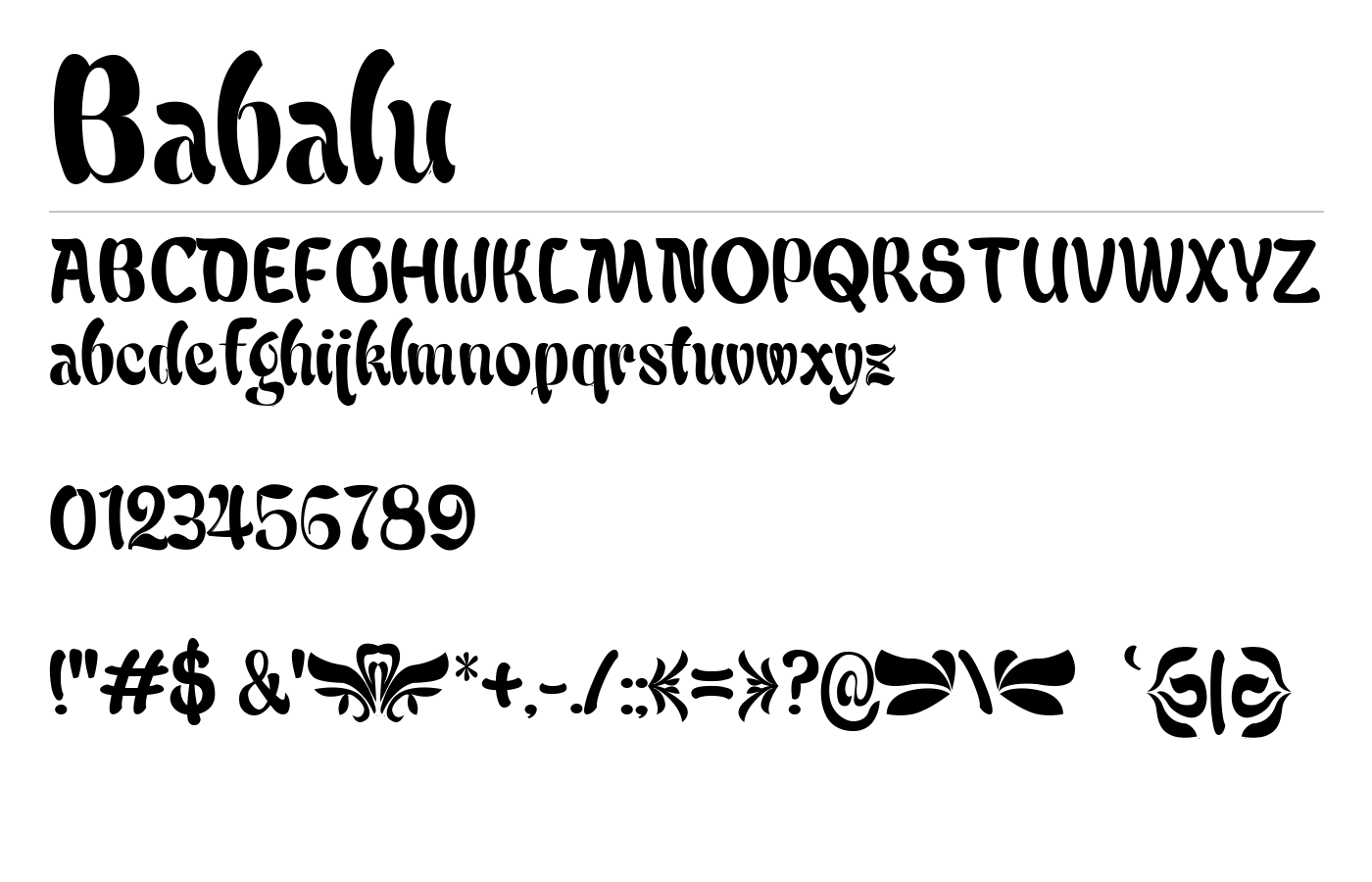
Babalu is a bold, artistic serif font with a unique and playful character, featuring strong strokes and decorative details that give it a lively, hand-crafted feel. Its rounded yet sharp letterforms and high contrast make it well suited for eye-catching logos, packaging, and headlines where personality and flair are key. This font works best in creative and vibrant contexts, adding a distinctive, stylish touch that stands out.
Babalu Font
About Babalu Font